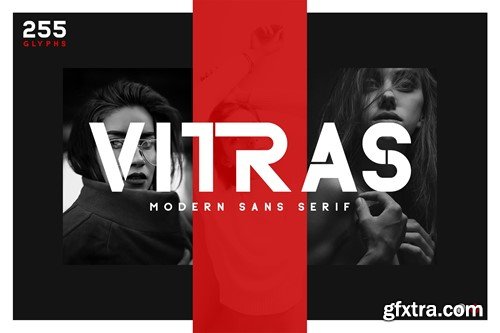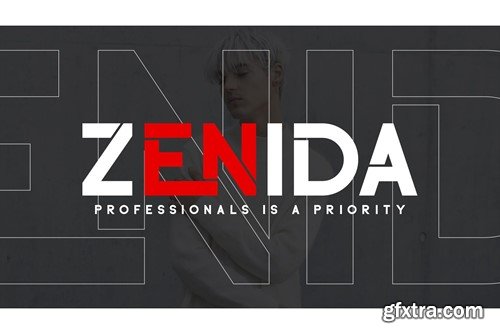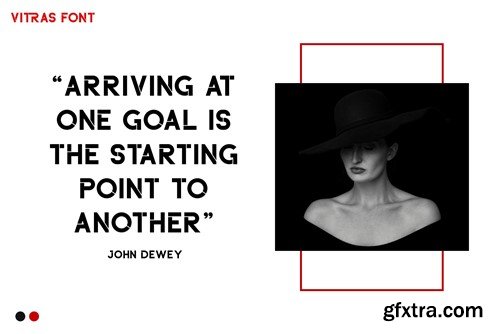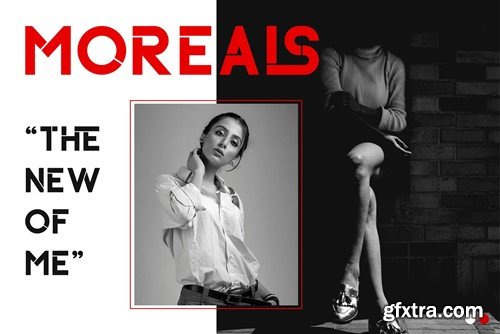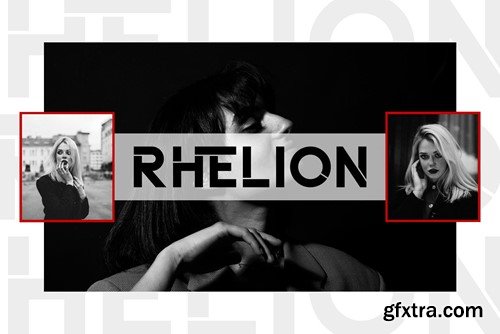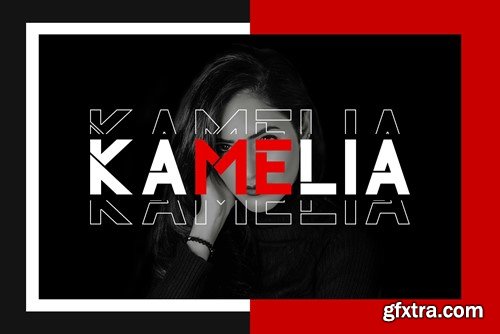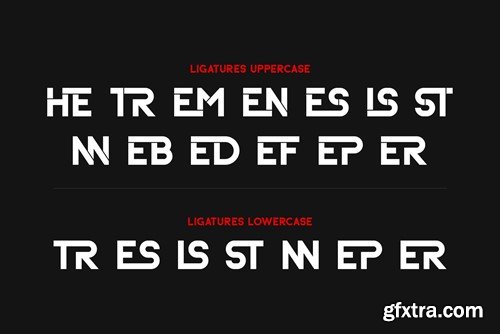
Vitras Sans Serif Font
Vitras Sans Serif is a balanced, and stylish sans serif font. He has a beautiful character. Very suitable to be combined with invitation card designs, company logos, magazines, business cards, book titles, brand names and various other designs. Vitras Sans Serif is a balanced, stylish sans serif font. Its stylish alternation and binding make this font the perfect partner for any project. FEATURE : Hope you like it. Thank you.